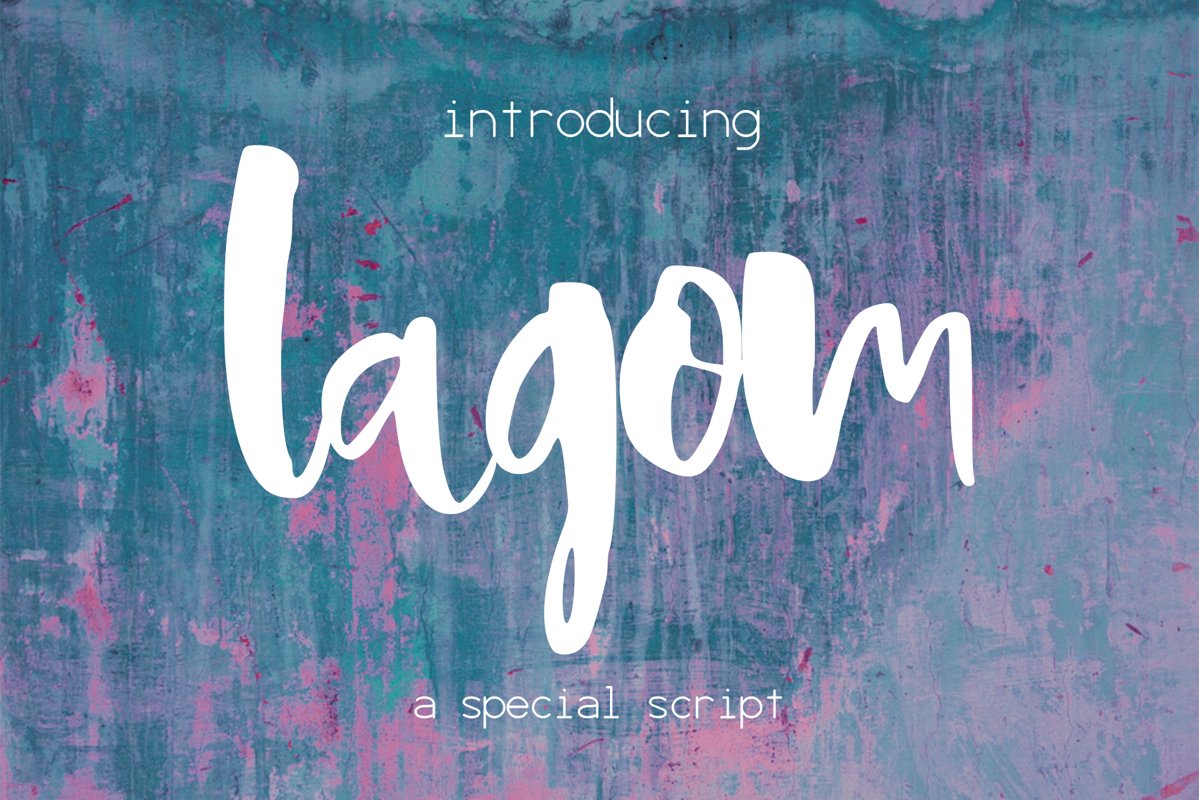
Lagom Font
Lagom-Regular
Introducing Lagom, a special elegant handwritten script.?
Perfect for any graphic and logo designs, wedding and birthday invitations.
Lagom font contains uppercase & lowercase characters, numbers and punctuations.